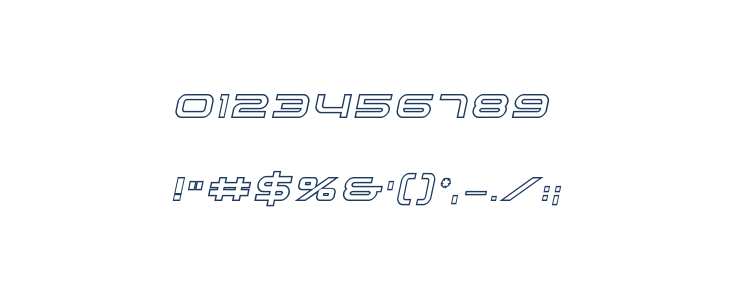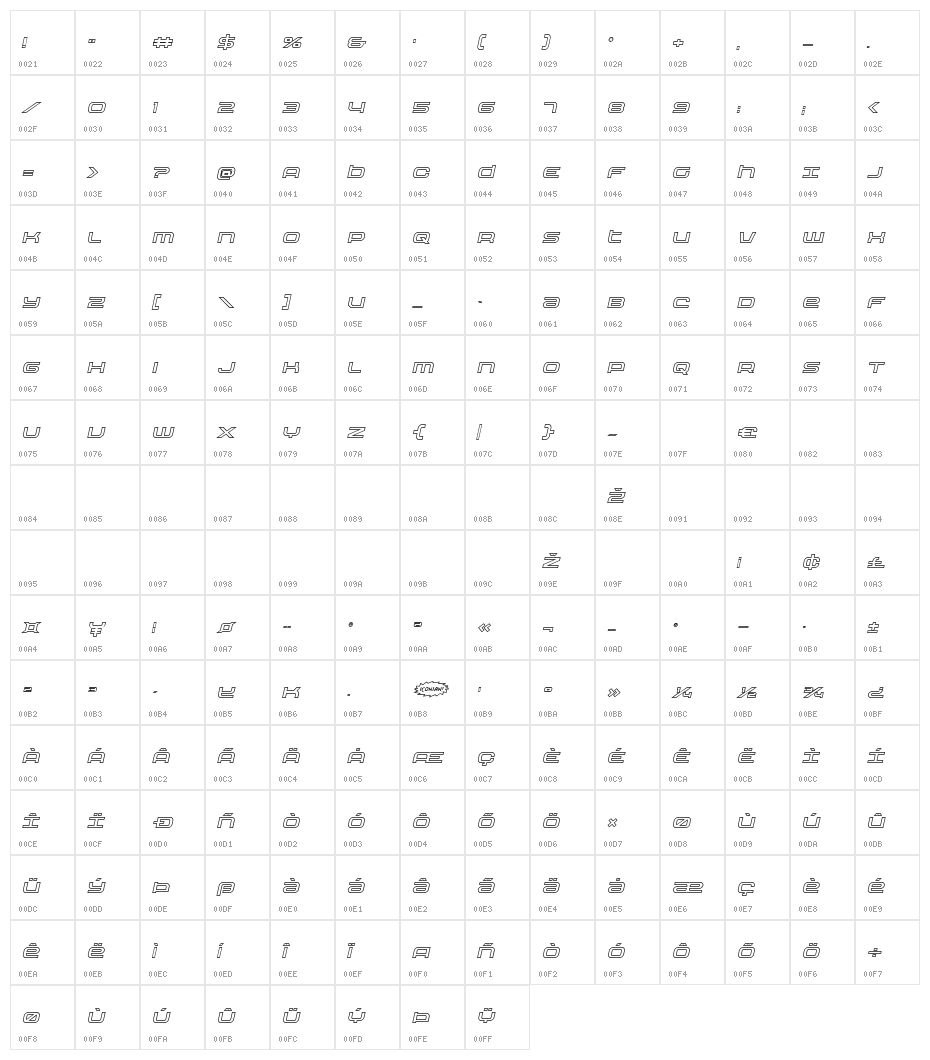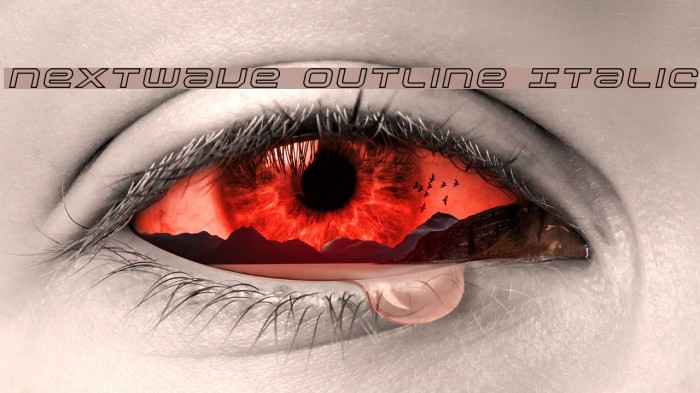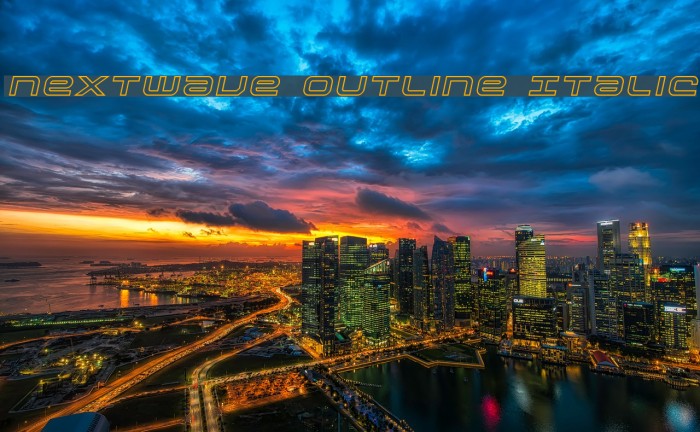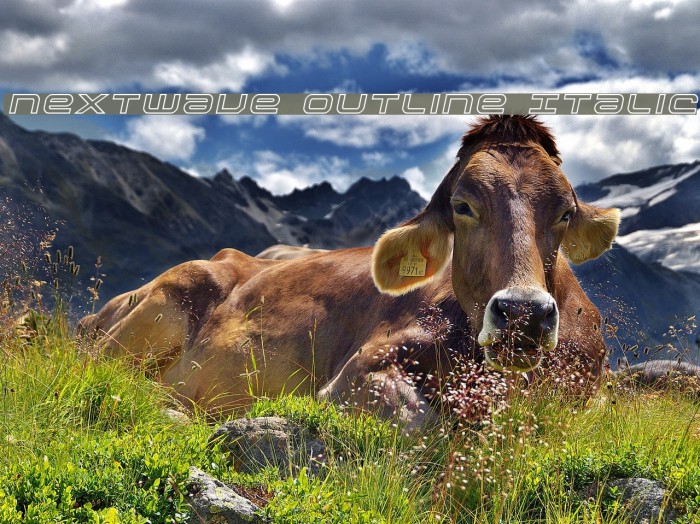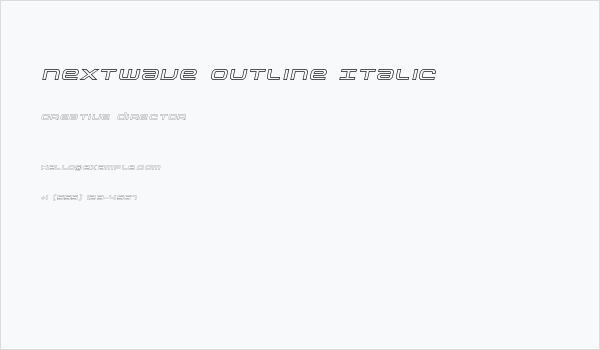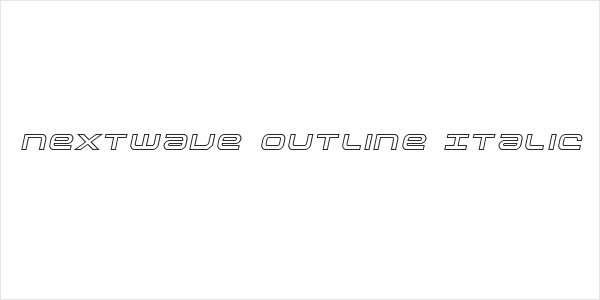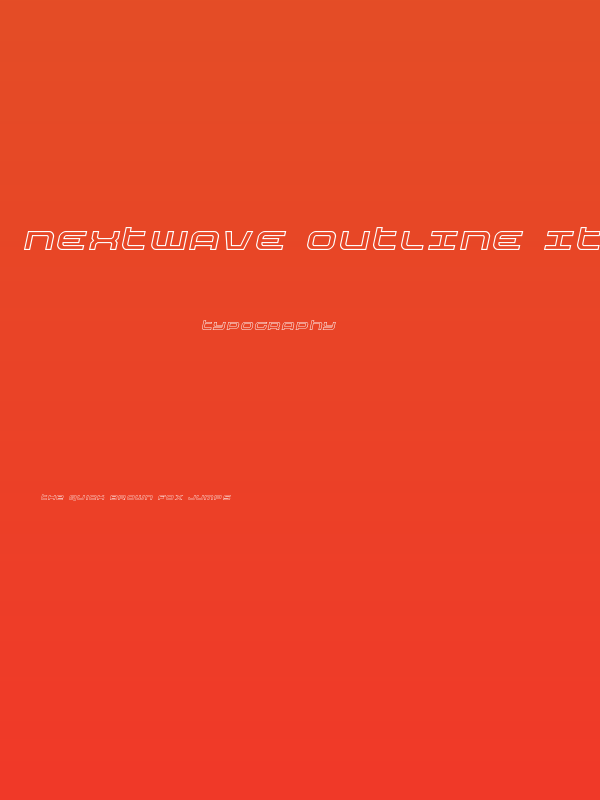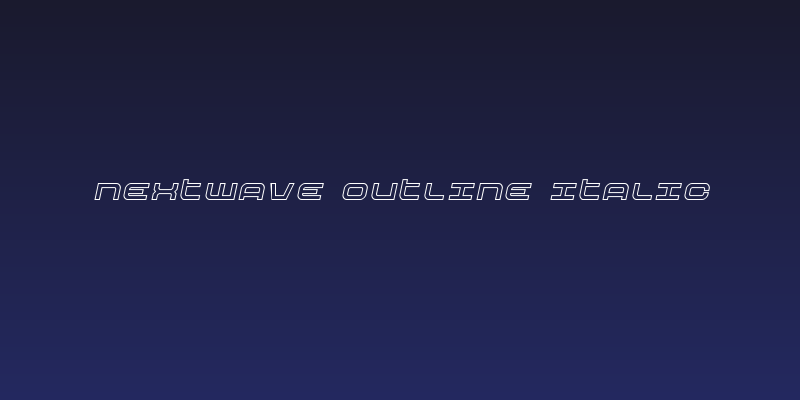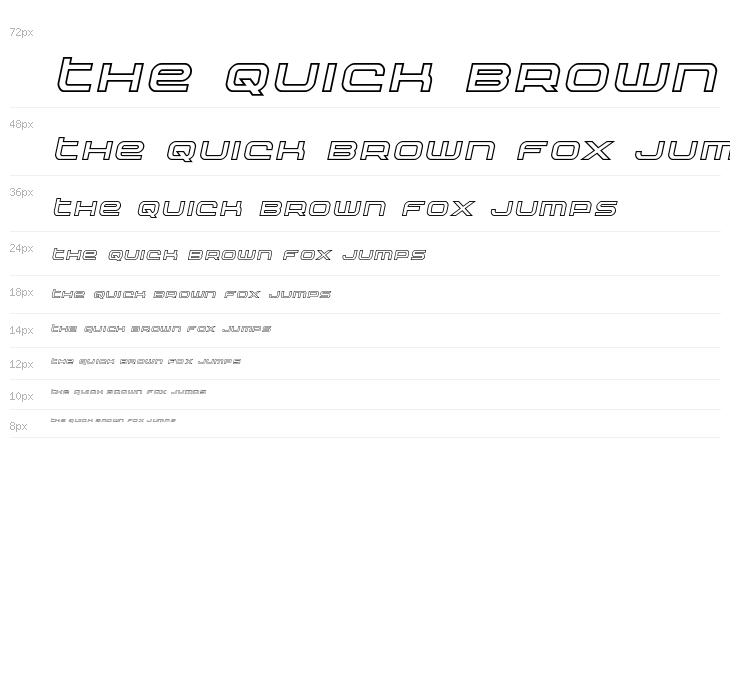
Nextwave Outline Italic Font
Nextwave Outline Italic Description
This font features a modern, futuristic design with an outline style that gives it a distinctive, airy appearance. The characters are italicized, adding a dynamic and forward-leaning aspect to the text. Each letter and number is crafted with precision, showcasing clean lines and a geometric structure. The font maintains a consistent stroke width throughout, contributing to its sleek and uniform look. The spacing between characters is normal, ensuring readability while maintaining its unique style. Special characters are included, matching the overall aesthetic with the same outlined and italicized design.
| Proposed Projects | Ideal for tech-related branding, futuristic posters, sci-fi book covers, and digital media projects. |